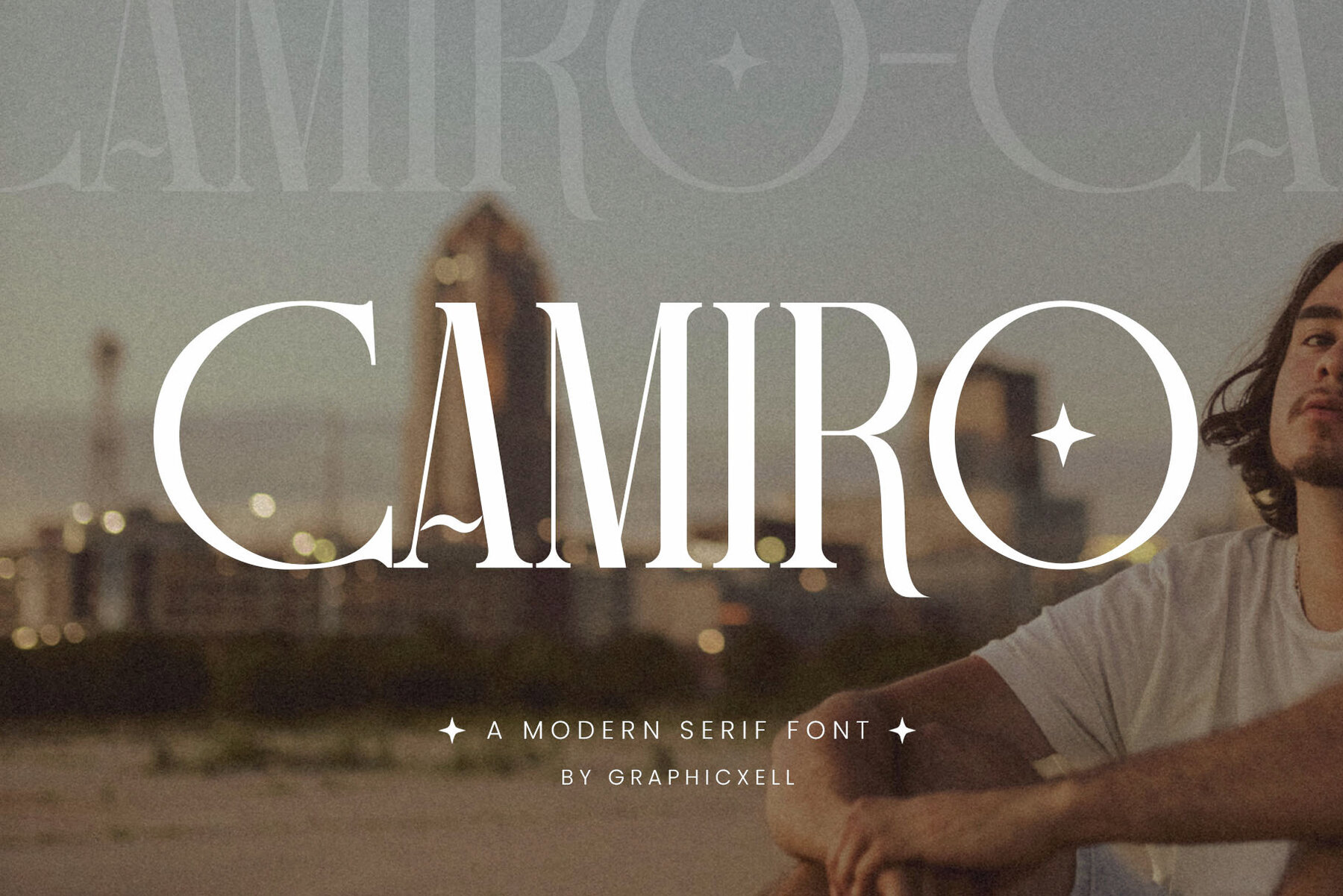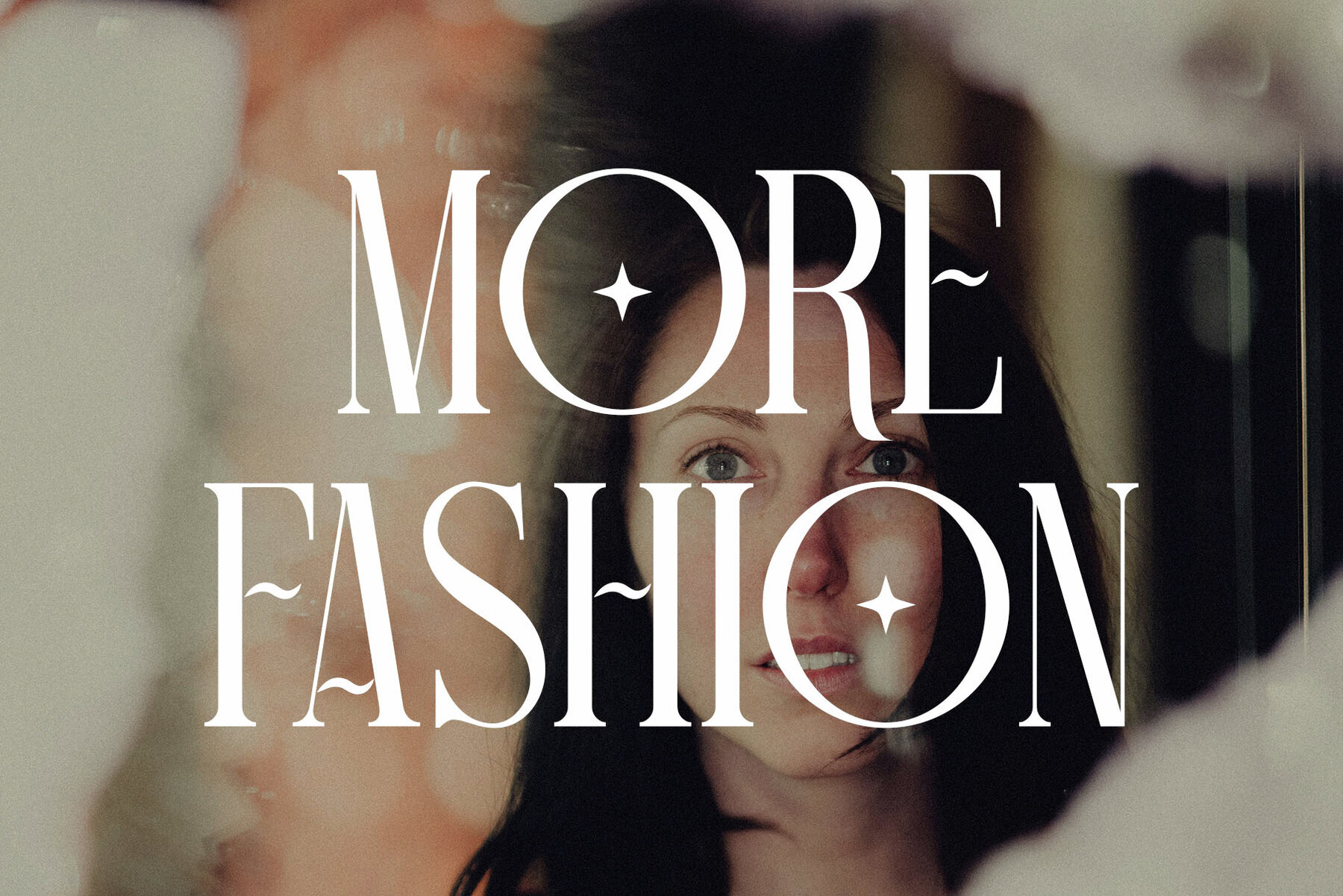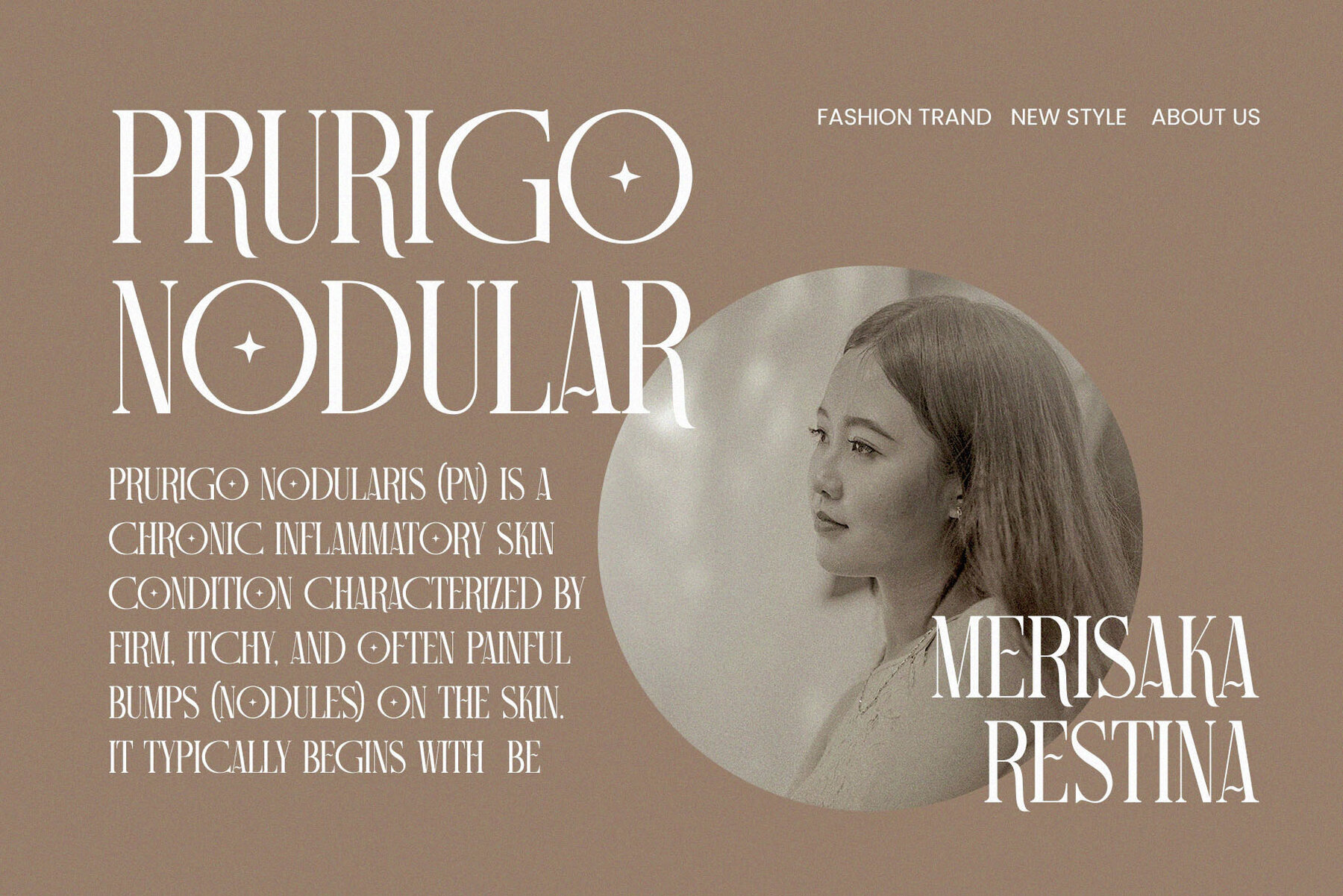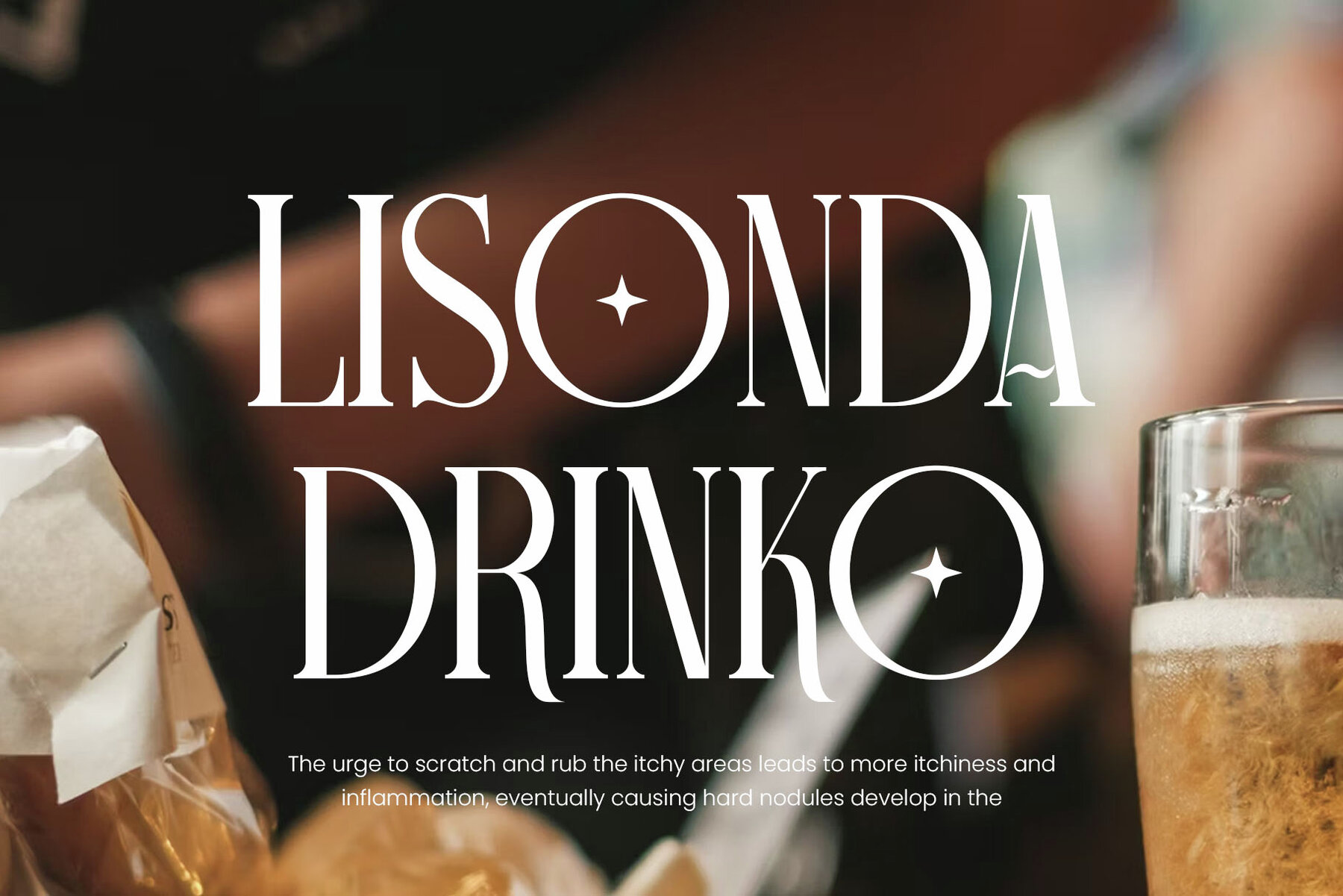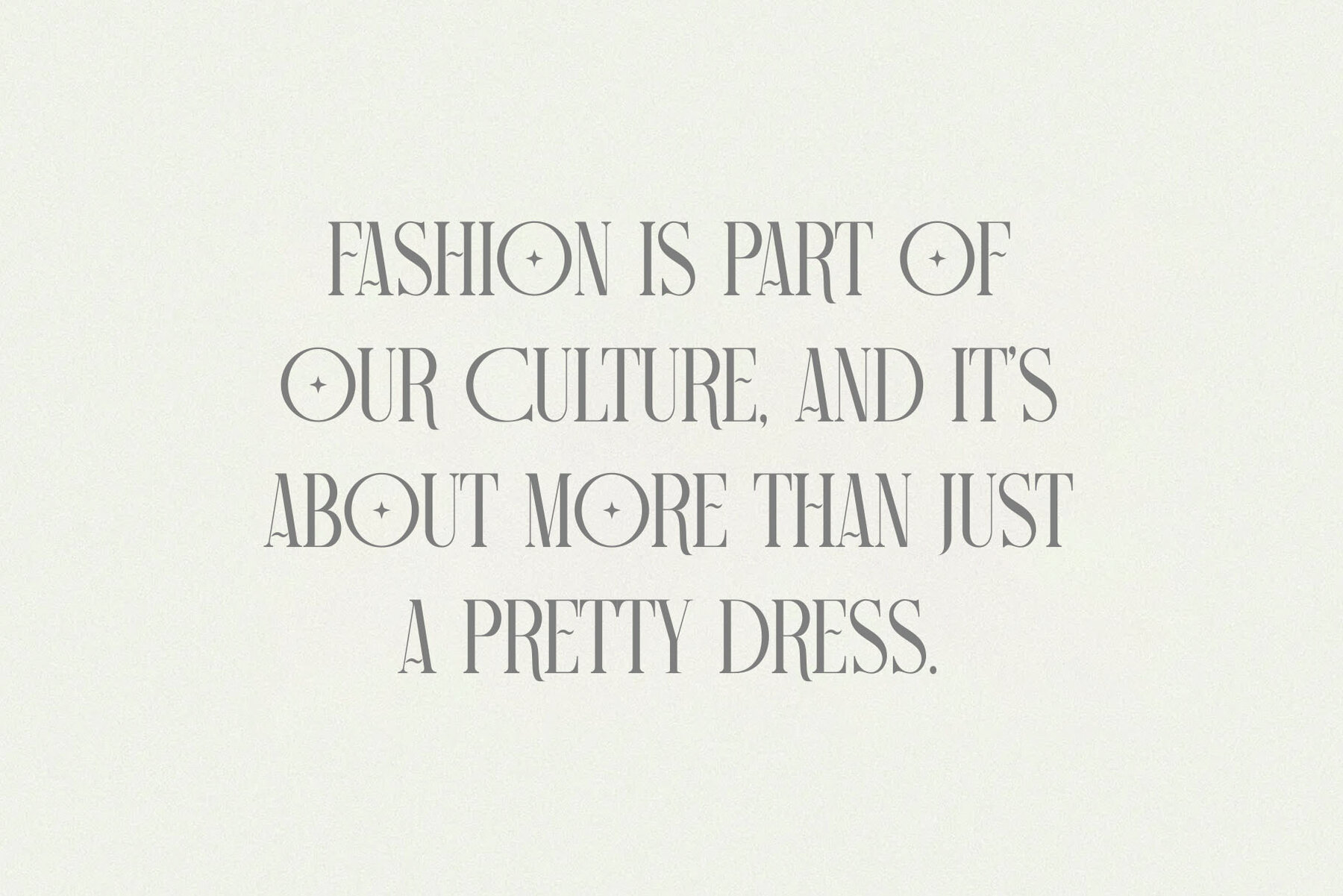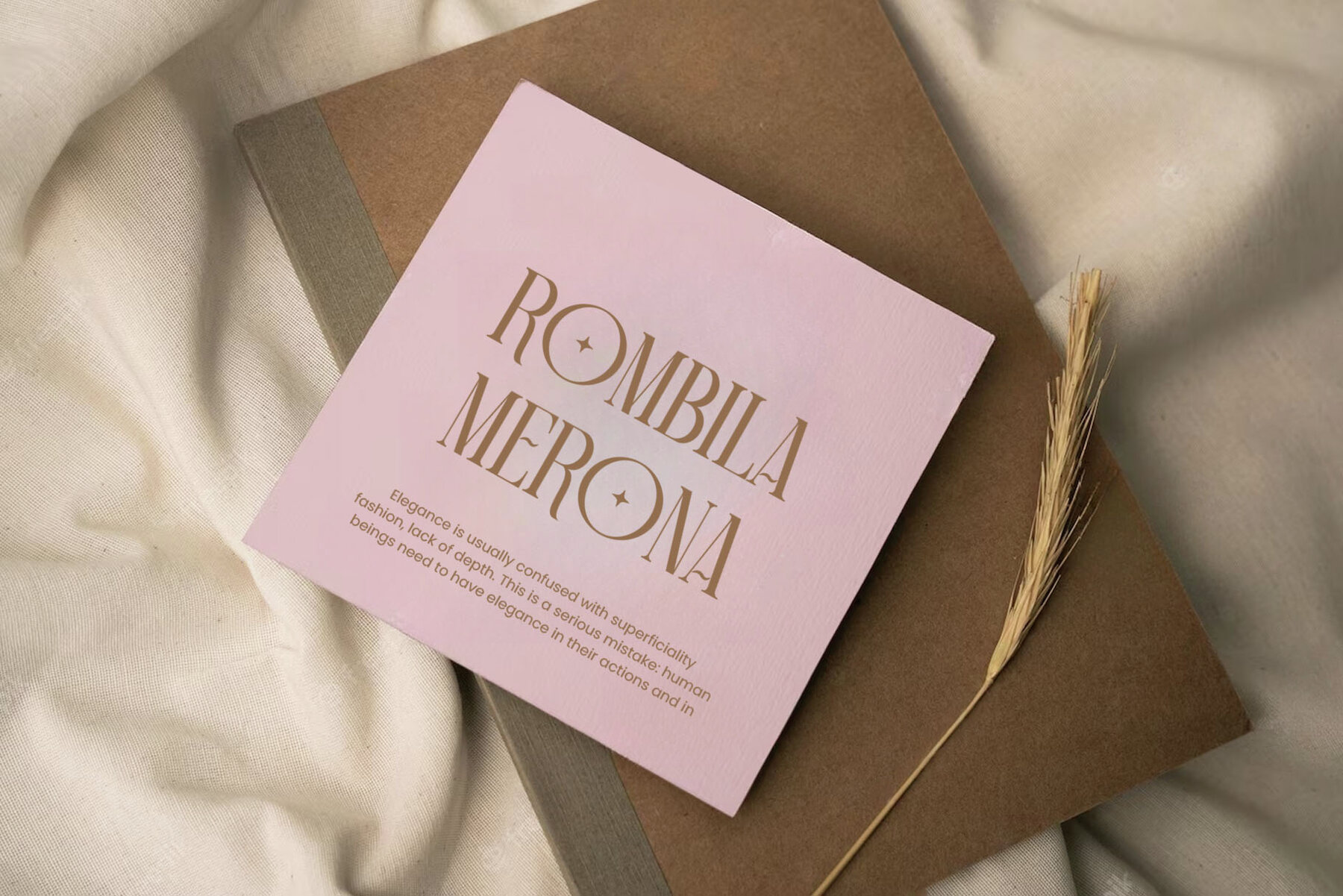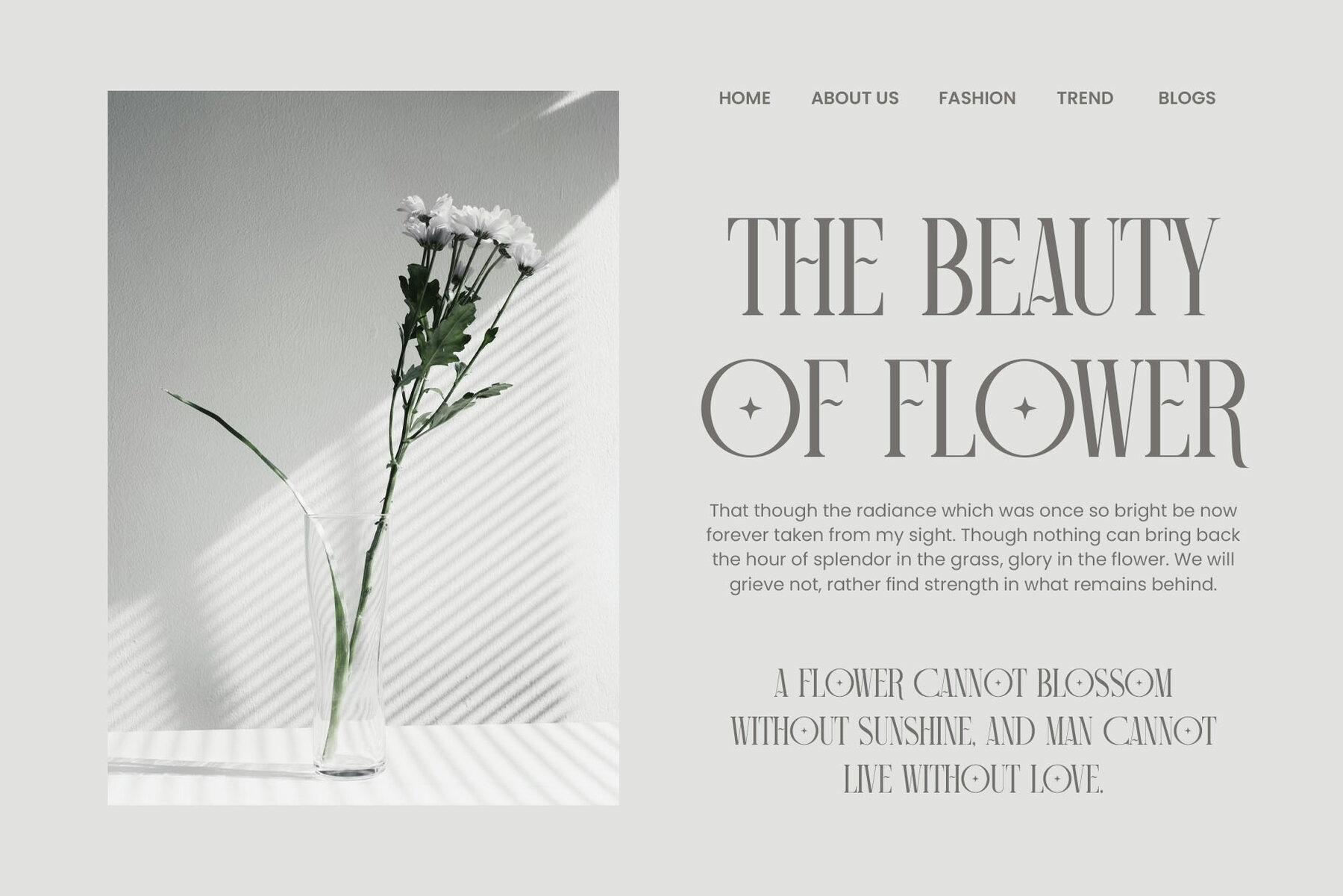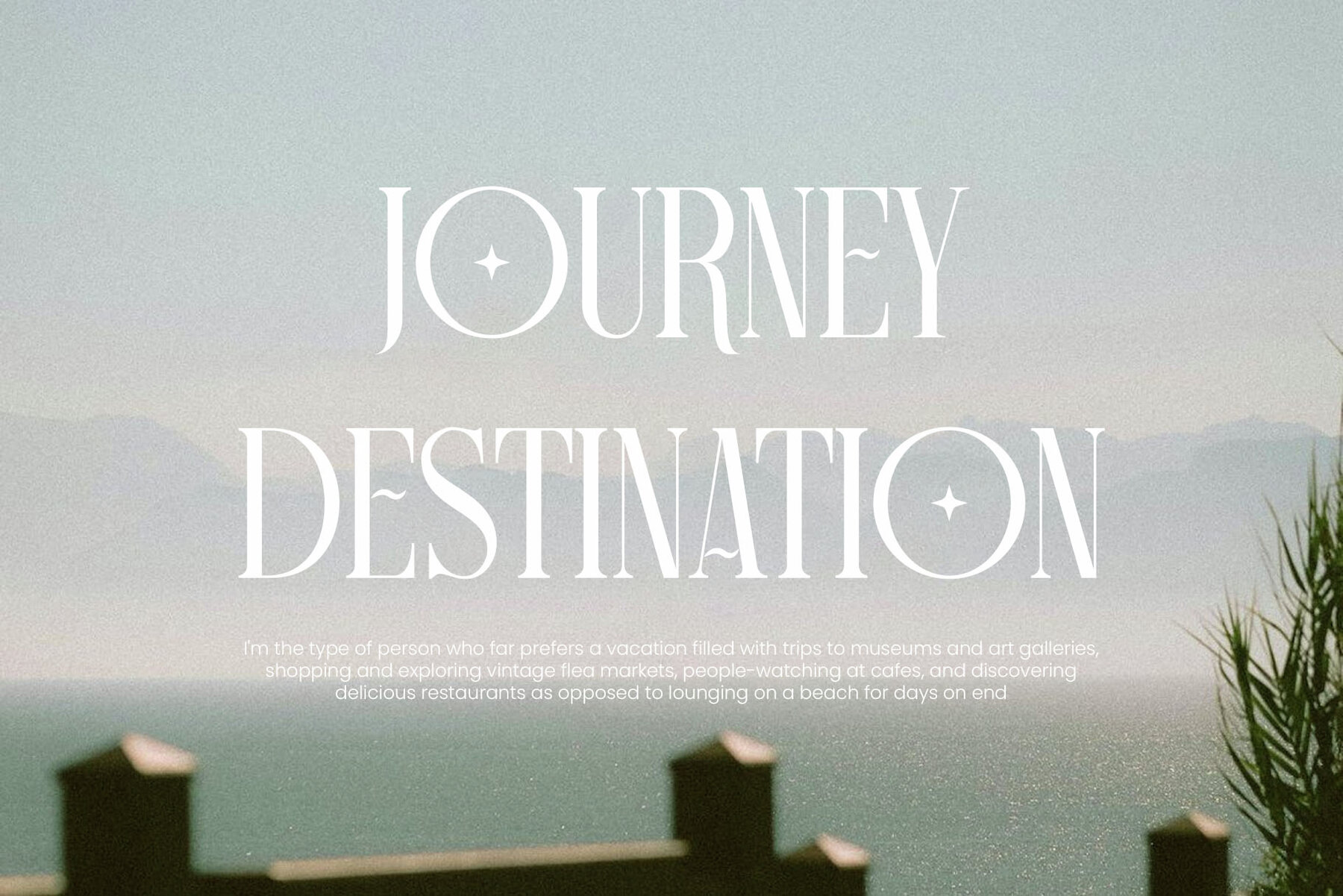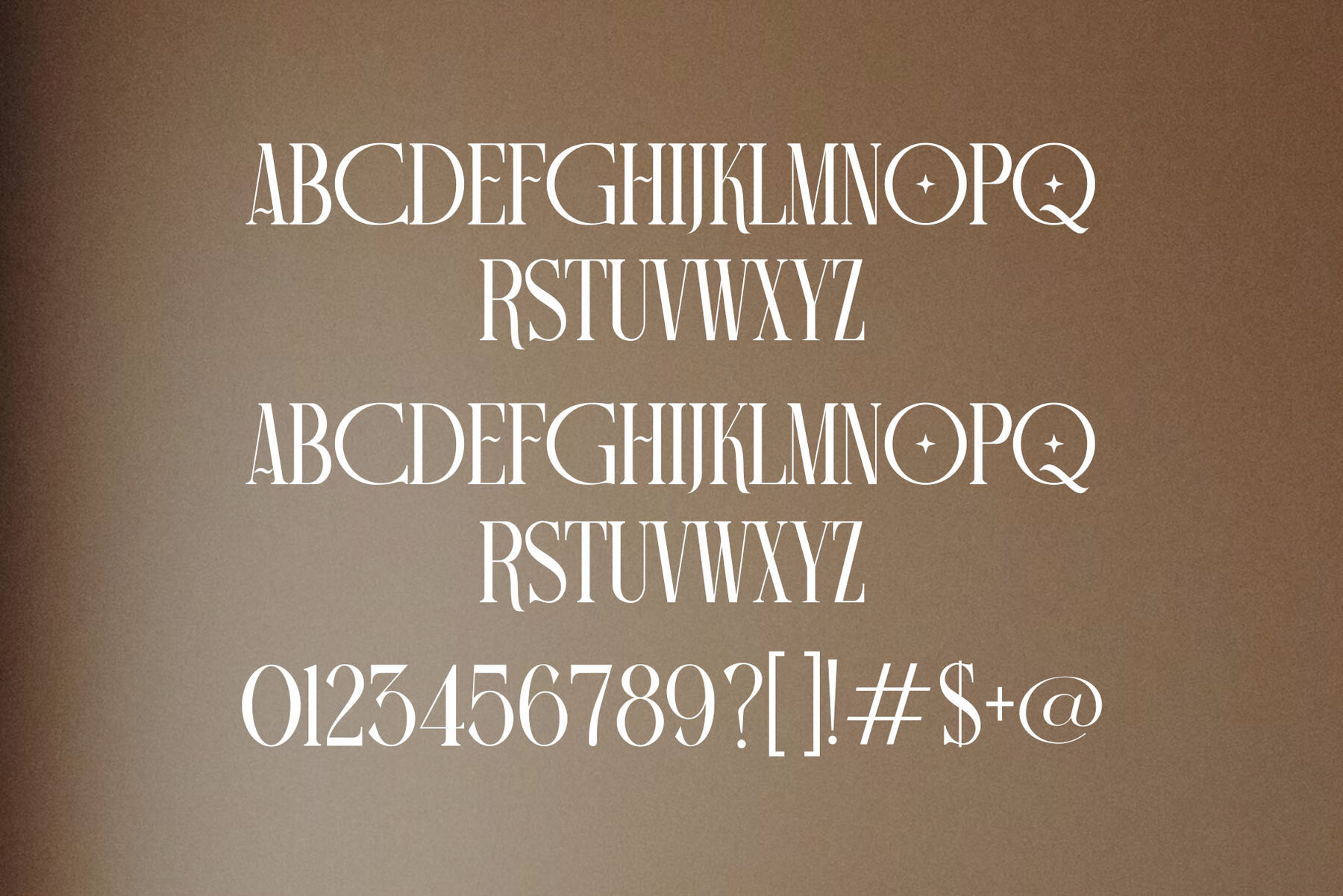
Camiro Font
Camiro Regular
Camiro, inspired by renowned minimalist logos, is an ideal choice for various design needs. Its clean lines and elegant style make it suitable for templates, brochures, invitations, and more.Camiro: Minimalist Typeface for Versatile Designs